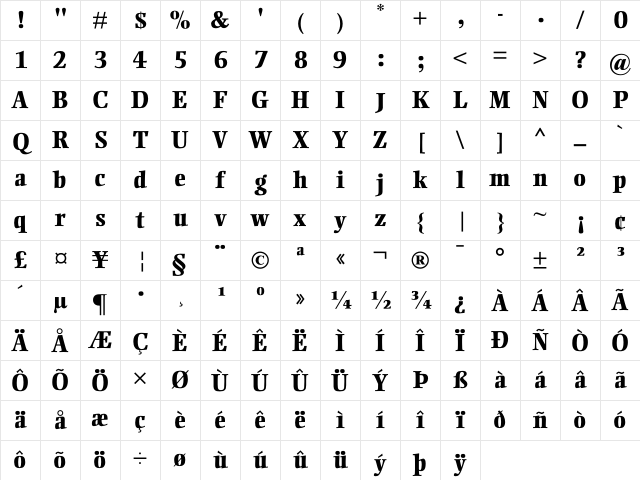
Ellington Extra Bold
Style: Extra Bold
Ellington Family
Design Context for Ellington
Ellington is a composed and adaptable typeface that performs quietly and consistently across a wide range of design contexts. Its bold stroke weight gives it real presence on the page.